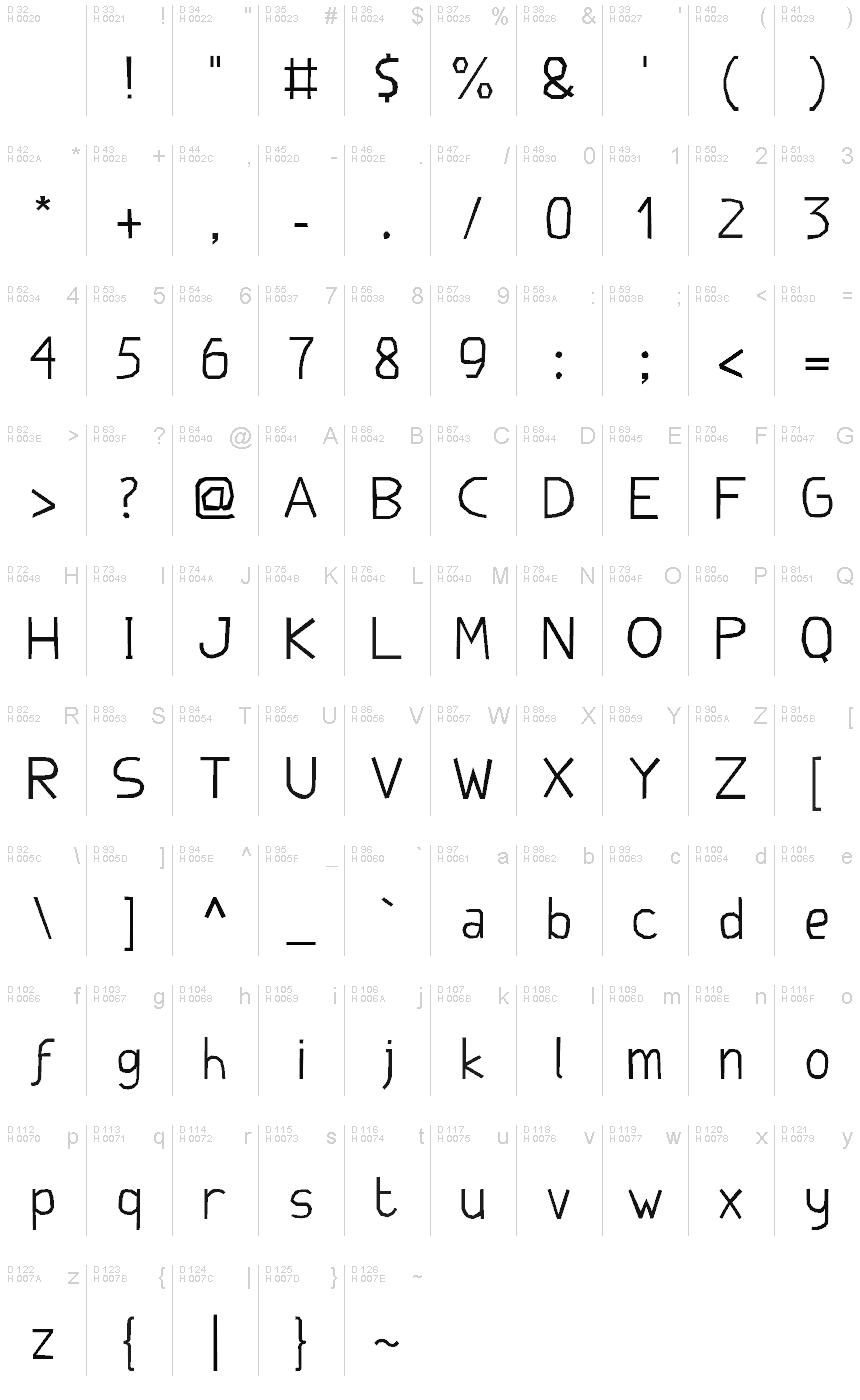
Prehistoric
Prehistoric, designed by the imaginative Dichi!, is a playful display font that exudes charm and character. With its cartoon style, this semi-light typeface evokes whimsy and fun, making it an excellent choice for a wide range of creative endeavors. Its quirky letterforms are reminiscent of the carefree sketches found in children's storybooks or animated adventures from a bygone era.
The aesthetic appeal of Prehistoric lies in its ability to capture the essence of lighthearted storytelling through typography. Each character is crafted with a gentle irregularity that suggests a hand-drawn quality, providing a personal touch to digital designs. This font's unique look makes it particularly well-suited for branding projects, editorial illustrations, or any visual composition seeking to infuse a touch of playfulness and warmth.
Whether you're designing an invitation to a themed event, creating engaging educational materials for young audiences, or developing brand identity for products that celebrate the joyous side of life, Prehistoric offers versatility and style that can bring your concepts to life with an endearing twist.
Prehistoric font with modern looks.